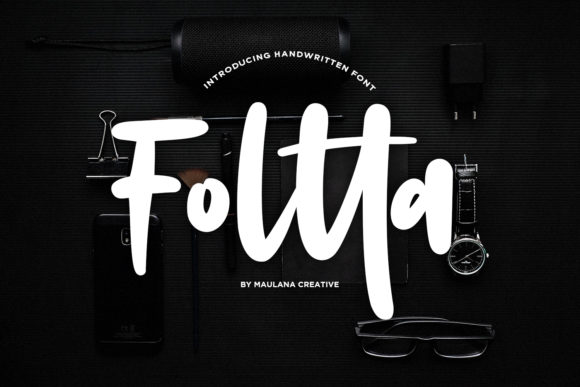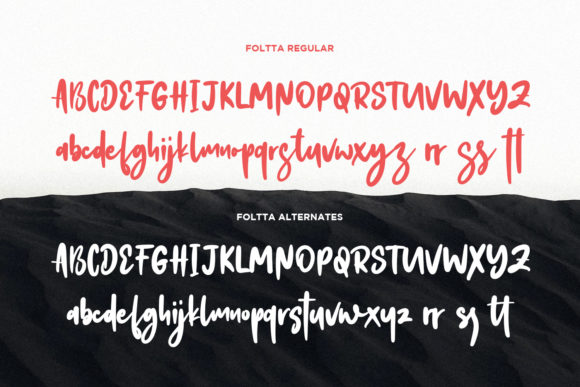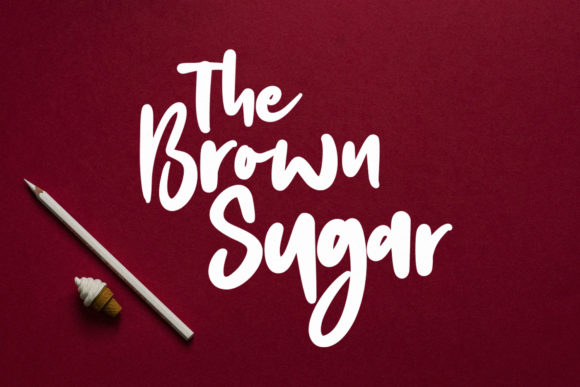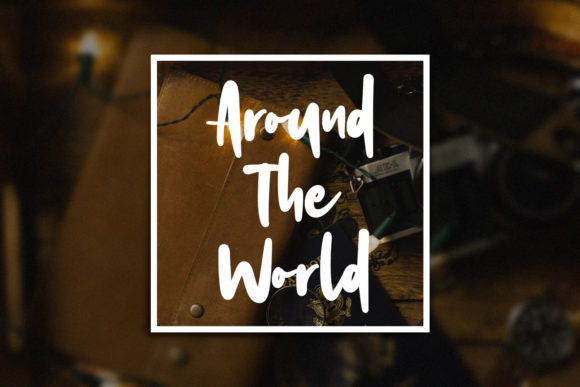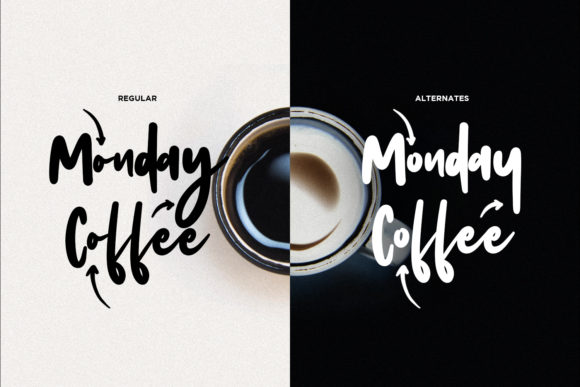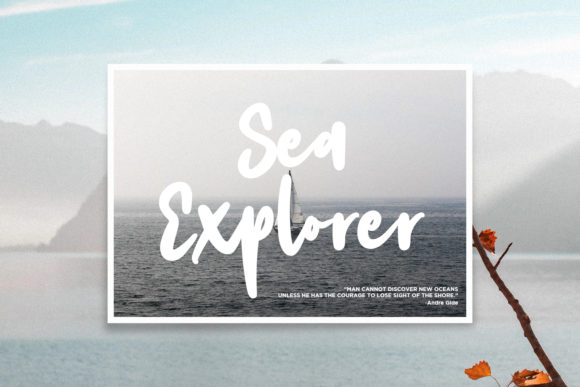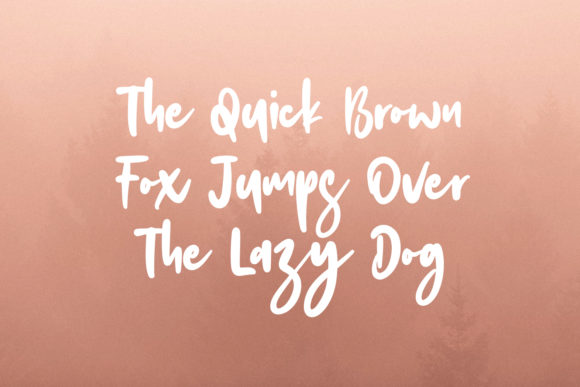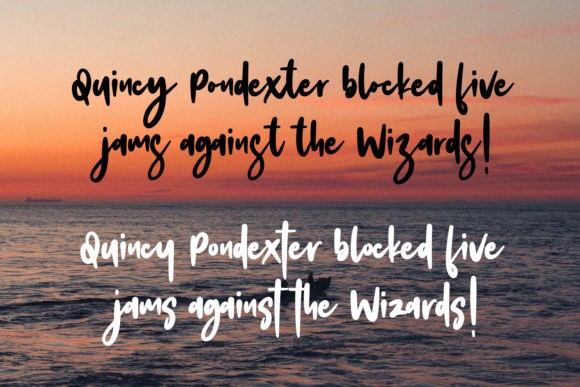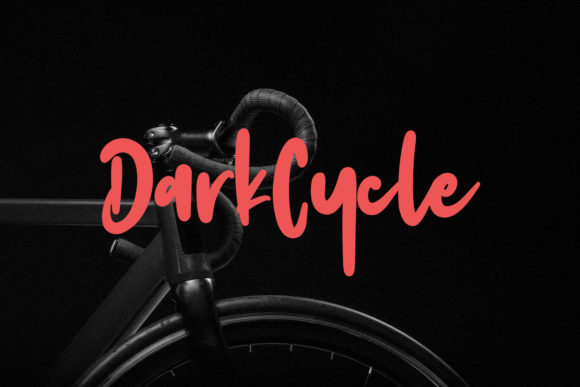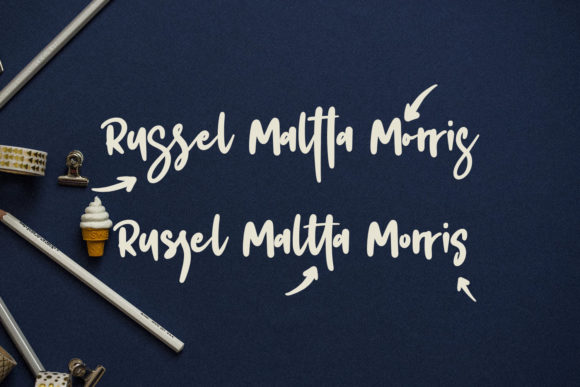
HomeScript FontsFoltta Font Script Fonts Foltta Font FacebookXPinterestWhatsApp Foltta Font Poster 2 Foltta Font Poster 3 Foltta Font Poster 4 Foltta Font Poster 5 Foltta Font Poster 6 Foltta Font Poster 7 Foltta Font Poster 8 Foltta Font Poster 9 Foltta Font Poster 10 About Foltta Font Foltta is a thick and juicy, bold and beautiful script. Fall for its undeniable charm! DOWNLOAD ON CREATIVE FABRICAThis font is sold and delivered by Creative Fabrica. Font Canyon may earn a commission if you buy through this link. People also explored Tenacity Font Girls Story Font Best Santa Greetings Font Squash Spread Font Happy Easter Icons Font Sparkle Font Natalee Font Sintyabelinda Font Collegium Font 307 0 TagsFoltta Font Previous articlePolandic FontNext articleWeisston Font LEAVE A REPLY Cancel reply Comment: Please enter your comment! Name:* Please enter your name here Email:* You have entered an incorrect email address! Please enter your email address here Website: Save my name, email, and website in this browser for the next time I comment. Personal Use Free Retro Free Personal Use Free Read more about this font BD Medled Personal Use Free Read more about this font Cleopatra Font Personal Use Free Read more about this font Straighler Personal Use Free Read more about this font BLOG Transform Your Website: Elevate Your Typography with 7 Best Web Font Generators Are you ready to transform your website's typography from ordinary to extraordinary? Great! Today, we're diving into the world of web font generators, which... To increase your work productivity, choose the most readable fonts. Best Fonts for T-Shirt Design – Top 2025 Picks The 10 Best Handwriting Fonts to Add Personality to Your Designs